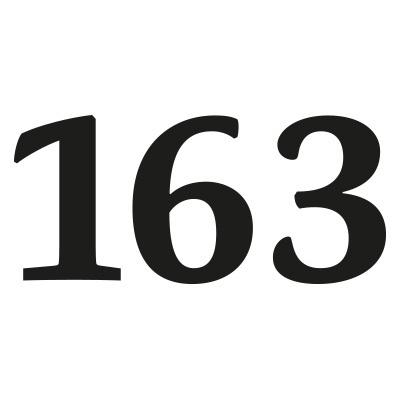
Figures with a uniform height similar or equal to the cap height of the font.
Dutch: kapitaalcijfers
French: Chiffres alignés
German: Versalziffern
Italian: Numeri alti
Spanish: Números de caja alta